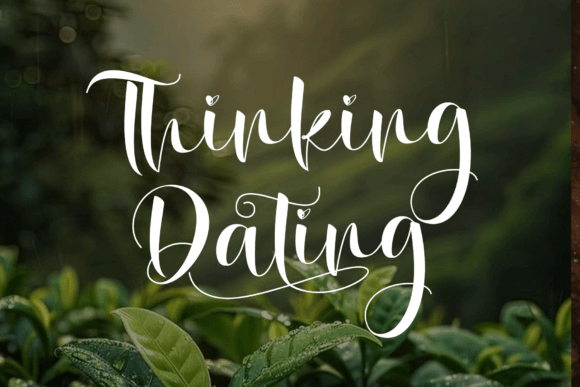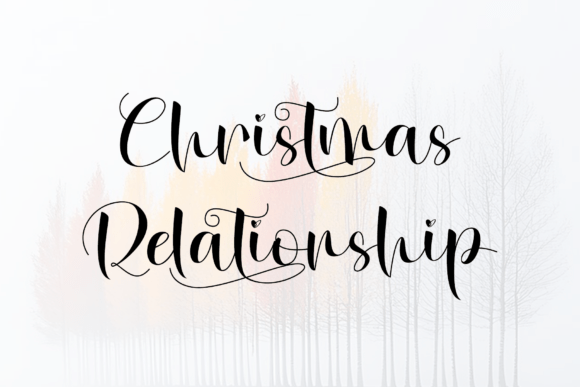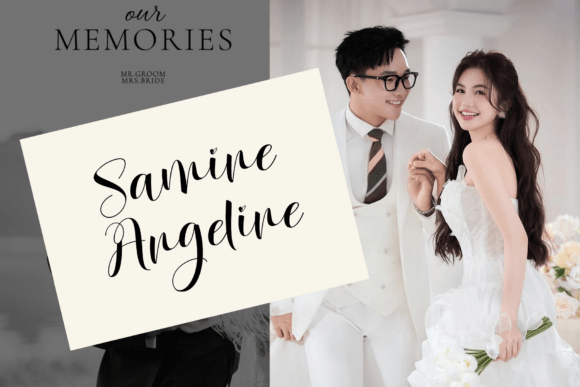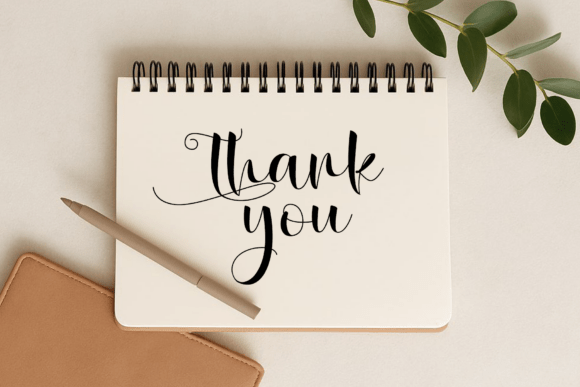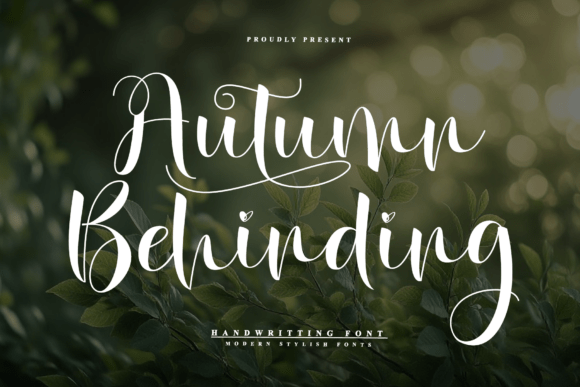
The Magic of Autumn Behinding Font: A Designer’s Delight
Autumn Behinding is a lovely and timeless handwritten font that has become a staple in my design toolkit. It’s the perfect choice for creating eye-catching logos, branding, and quotes. Every letter has a unique and beautiful touch, which will make your design come alive!
- Unique and beautiful letterforms that add a personal touch to any design
- Perfect for creating eye-catching logos, branding, and quotes
- Easy to read and works well in both digital and print formats
- Supports OpenType features, glyphs, and stylistic alternates for added versatility
- Timeless and elegant design that won’t go out of style
- Some letters may require manual kerning for optimal spacing
- Limited availability of condensed or italic variations
- Not suitable for very small font sizes (below 10pt)
The Story Behind Autumn Behinding Font
Autumn Behinding Font was created by a talented type designer who wanted to capture the essence of handwritten script in a digital font. Inspired by the beauty of nature and the imperfections of handwriting, the designer poured their heart and soul into crafting a font that’s both elegant and approachable.
Q: Is Autumn Behinding Font suitable for body text?
A: While Autumn Behinding is a beautiful font, it’s best suited for headlines, logos, and short paragraphs. For body text, a clearer font may be more readable.